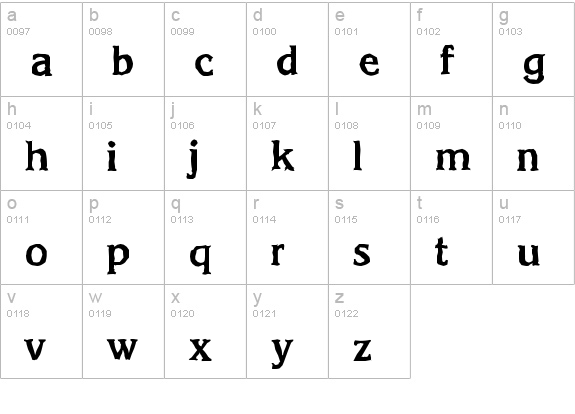
KorinthAntique-Bold Font Details
KorinthAntique-Bold is a strong, high-contrast variant in the KorinthAntique typeface family \xE2\x80\x94 well suited to headlines, attention-grabbing titles, and strong calls-to-action.
KorinthAntique-Bold is a striking and bold serif font that exudes a sense of strength and elegance. Its timeless design makes it ideal for a wide range of projects, from branding to editorial design. The thick, well-defined lines of KorinthAntique-Bold give any text a powerful presence on the page, making it perfect for headlines and titles that need to make a strong impact. This font is available for free download at FontsMarket.com, making it accessible to designers and creatives looking to enhance their projects with a touch of sophistication. Whether you're working on a print ad, website design, or any other creative endeavor, KorinthAntique-Bold is sure to elevate your work with its classic yet modern aesthetic. Don't miss out on the opportunity to add this versatile font to your collection and take your designs to the next level.